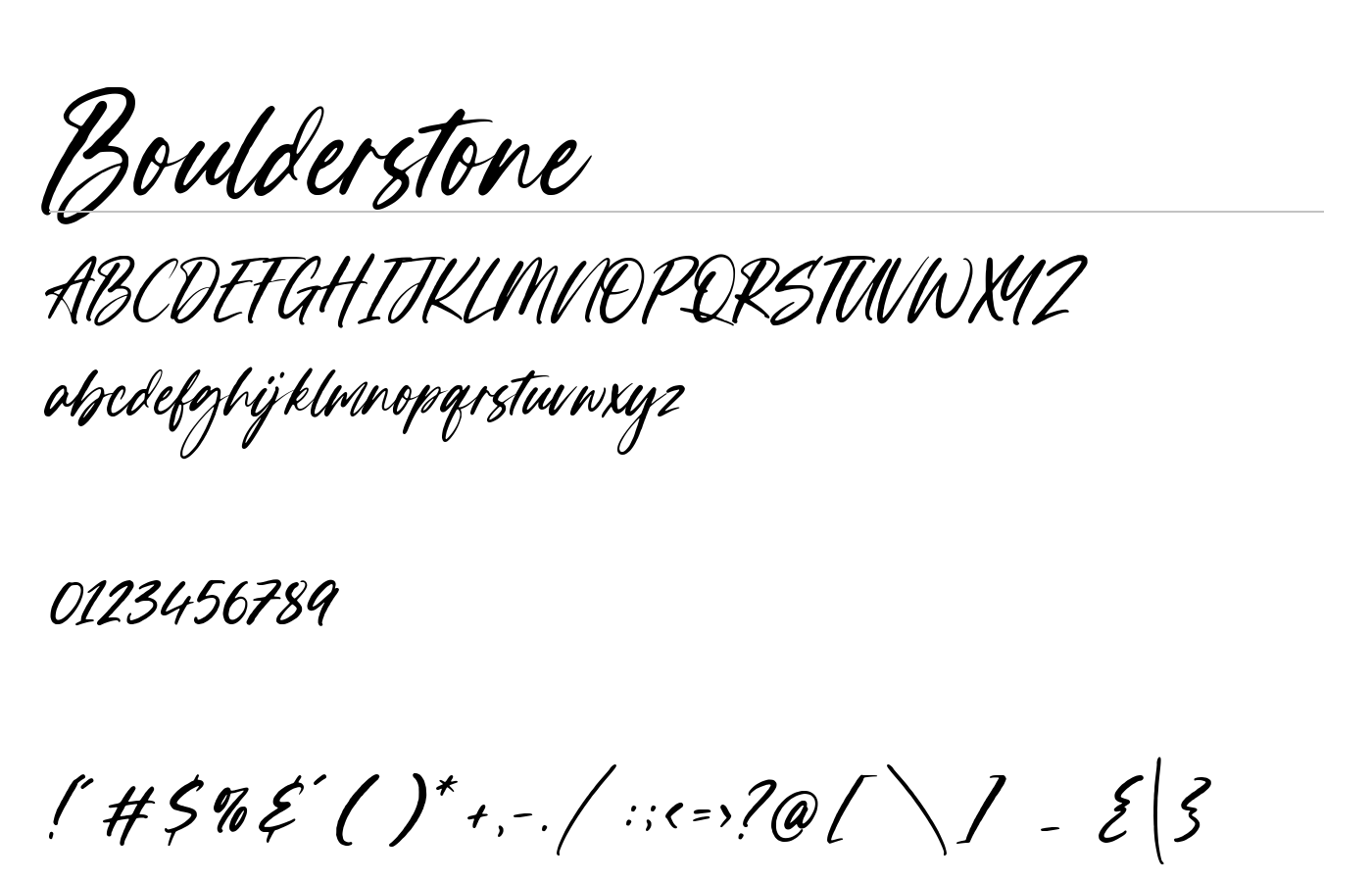
Boulderstone is a stylish, script-style font with a lively and elegant handwritten feel. Its smooth, flowing strokes and slightly varied line weight give it a natural, personal touch, making it perfect for creative branding, invitations, and fashion-focused designs that seek a modern yet sophisticated vibe. This font shines in headlines and logos where a unique, graceful personality is desired.
Boulderstone Font
About Boulderstone Font
| Font family | Boulderstone Font |
| Designer | Letterative Studio |